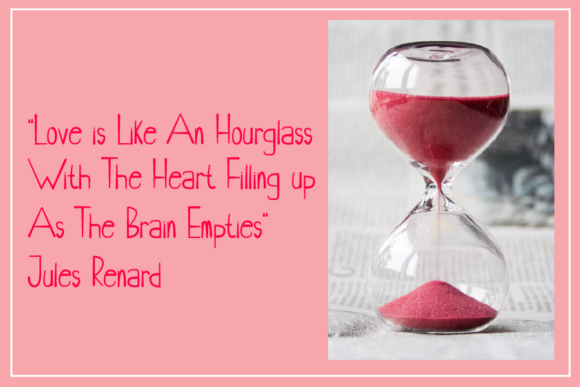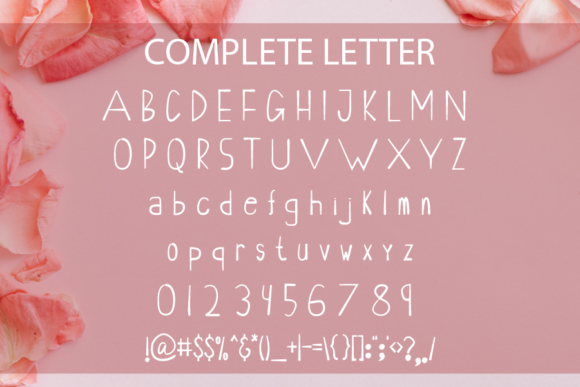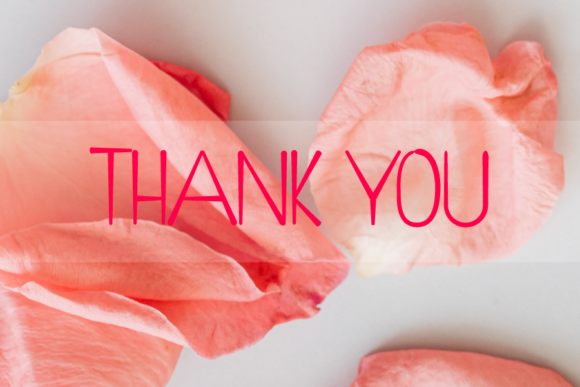
Introduction to Letto Font
Have you ever found yourself stuck in a creative rut, desperately searching for the perfect font to bring your design project to life? You’re browsing through endless options, trying to find that one font that speaks to your vision, until suddenly, you stumble upon it – a font that makes everything click into place. For designers, this moment is pure magic, and it’s exactly what you’ll experience with the Letto Font.
Letto Font is a sweet and friendly display font that’s bursting with natural charm and unique character. Its versatility makes it an incredibly valuable design resource, perfect for a wide range of creative projects. From posters to branding, and even social media graphics, Letto Font is the perfect companion to help you bring your ideas to life.
Key Features of Letto Font
- High-quality design: Letto Font is a premium font designed for creative projects, offering a unique and elegant style.
- Unique characteristics: Letto Font features a unique blend of modern and classic elements, making it an ideal choice for designers seeking a distinctive look.
Honest Review: Letto Font
I recently stumbled upon the Letto Font and was excited to give it a try. As a designer, I’m always on the lookout for high-quality design resources that can elevate my creative projects. Letto Font did not disappoint.
- ✨ High-quality typography: The Letto Font has a sleek and modern design that looks great on any background, making it perfect for a variety of creative projects.
- ⚠️ Limited font styles: Letto Font only comes in a few styles, which may limit its versatility for some designers.
Overall, I’m impressed with the Letto Font and would recommend it to designers looking for a high-quality, free design resource for their creative projects.